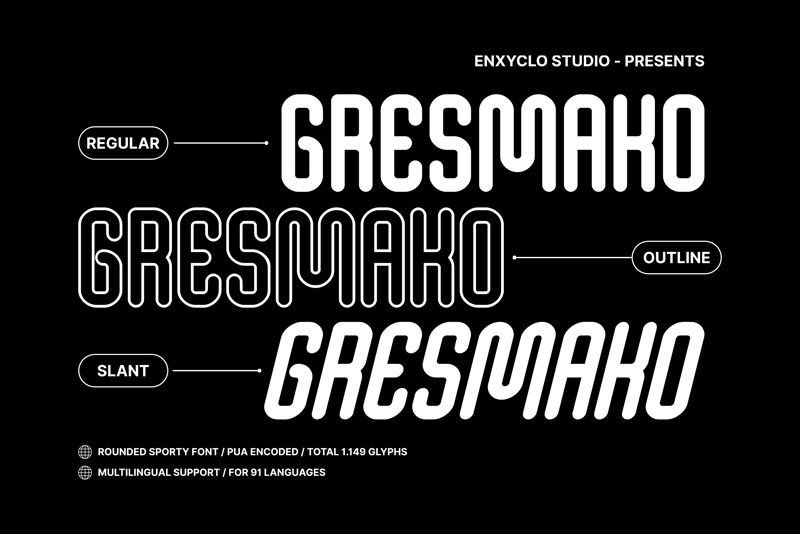
GRESMAKO
Gresmako font is a free, condensed display typeface designed by Enxyclo Studio with streamlined structures and geometric shapes. Gresmako’s consistent thickness of lines and industrial feel allows it to reach the perfect balance between modernity and futuristic aesthetics. What makes this font stand out however is its urban designs which collect a little mystery.
Gresmako is best used in posters, game interfaces, book titles, headlines, labels, packaging boxes, advertisements for magazines/blogs/websites/social networks. It will also make a great addition to the branding of TV shows or Youtube channels related to technology.